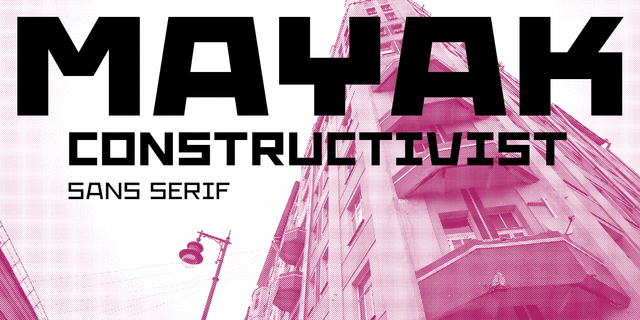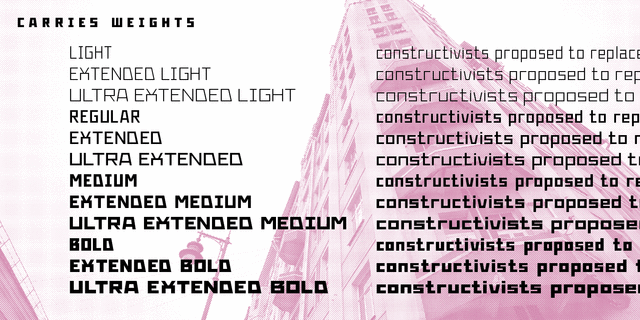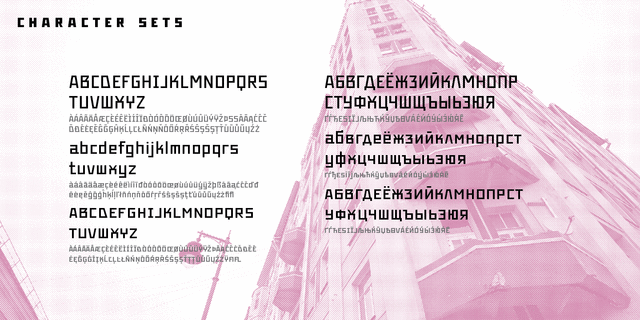
Mayak (12 fonts)
About MayakMayak is a geometric sans serif inspired by the Soviet constructivist fonts of the 1920s-1930s. It contains traditional upper and lower case characters as well as small caps and a great number of stylistic alternates. The font comes in 12 styles: 4 weights in 3 widths. Mayak was designed by Yana Nosenko with contributions from Dmitry Kirsanov and released by ParaType in 2017.
Associations for font family MayakTypeface personality and character:
solid, reliable, accurate, self-assured, steel, flat, stable, simple, cold, machine, sharp, thin, urbanistic, urban, glass, icy, chopped, square, rectangular, serious, convincing, iron, manly, nostalgic, totalitarian, loud, strong, durable, political, communist, revolutionary, daring, proletarian, industrial, technogenic, military, army, soldierly, rude, workman, motivating, railway, ambitious, angular, rigid, broken, elementary, cutting, crisp, brutal, game, robust, lasting, heavy, authoritative, formidable, important, red, monumental, severe, rogue, tough, yelling, cocky